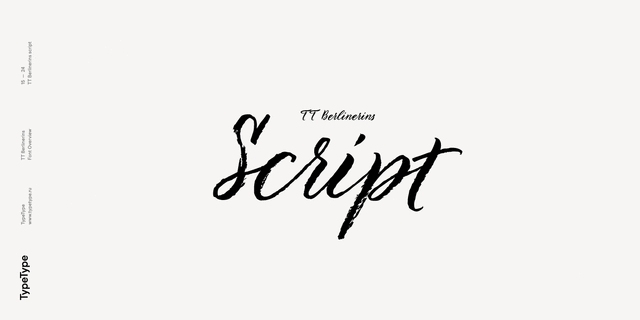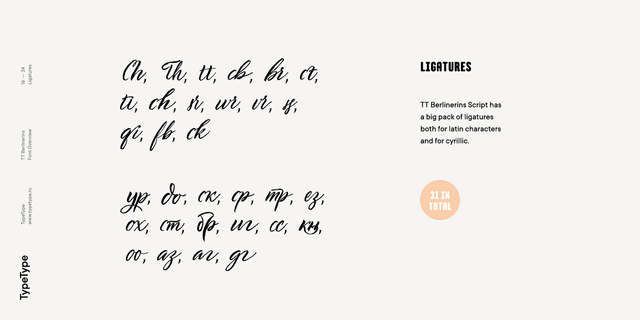
TT Berlinerins (1)
About TT Berlinerins is a contrast pair of typefaces which is basically our tribute to Berlin. Just like in the city itself where historicity and modernity are intertwined, the elegant script in our font family symbolizes the modern Berlin, and the sans-serif inspired by the wood-type poster types of the first third of the 20th century is responsible for the historic component of the city.
The idea of this project emerged in the beginning of 2016 when we’ve met Evgenia Pestova, a calligrapher from Berlin, who shared the contemporary perspective on calligraphy and the city impressions with us. The wood-type sans-serif appeared later, after our another colleague had visited Berlin and told us his fascinating story about the things he had seen. The city is full of contrasts — it is very modern and very vintage at the same time. The photographs and the impressions from the trip have also become the basis of our project. That is how we’ve added a little of old Berlins roughness and inhomogeneity.
TT Berlinerins Script contains 998 glyphs, including more than 240 swashes for which we’ve written a special feature. We’ve also drawn a large number of ligatures for TT Berlinerins Script and integrated wide support of OpenType features: ordn, frac, case, sups, sinf, numr, dnom, tnum, pnum, calt, liga.
The typeface was designed by Ivan Gladkikh and TypeType team in 2017.